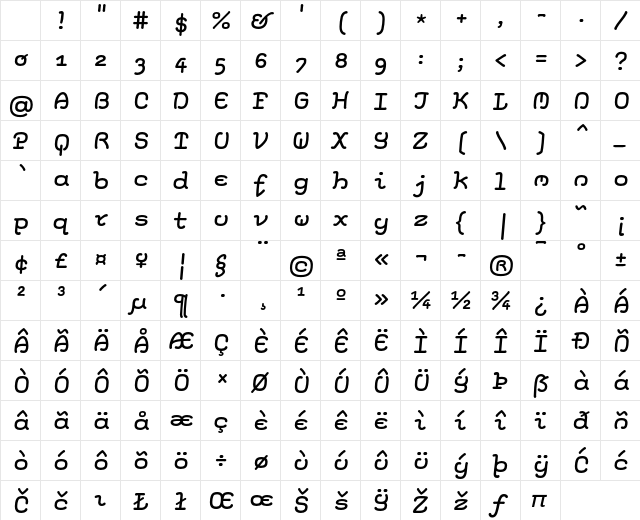
Complete Elementis LT Std Medium glyph index. Displaying only characters natively supported by Elementis LT Std Medium font.
Elementis LT Std is a composed and adaptable typeface that performs quietly and consistently across a wide range of design contexts. Its slender proportions lend an understated elegance to any composition.